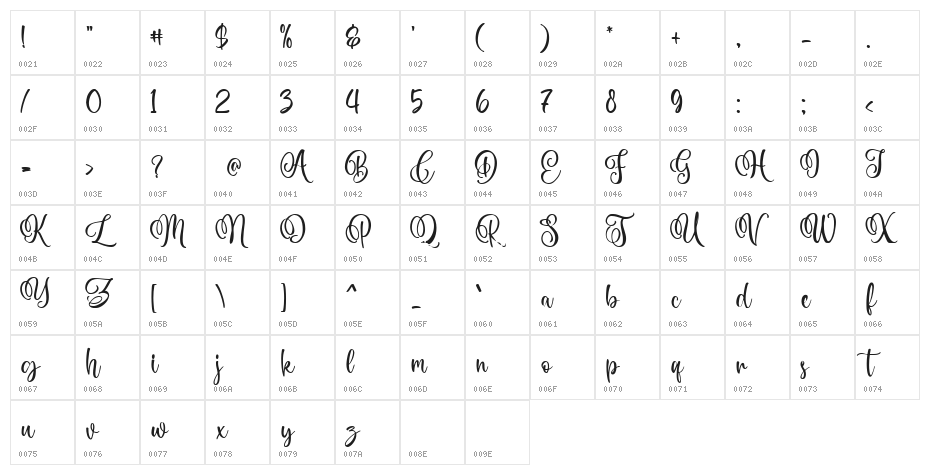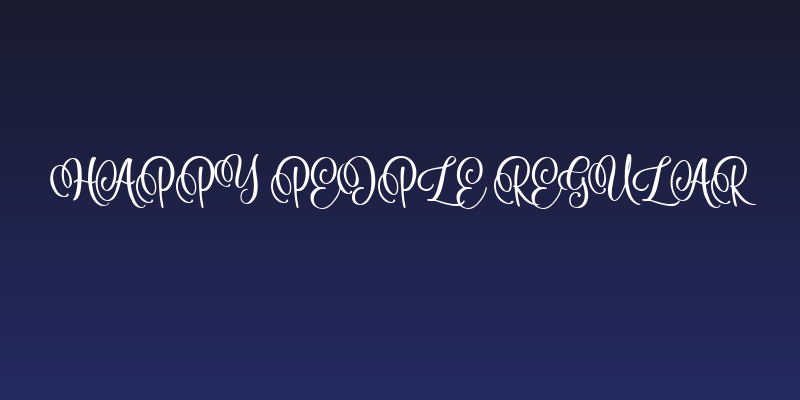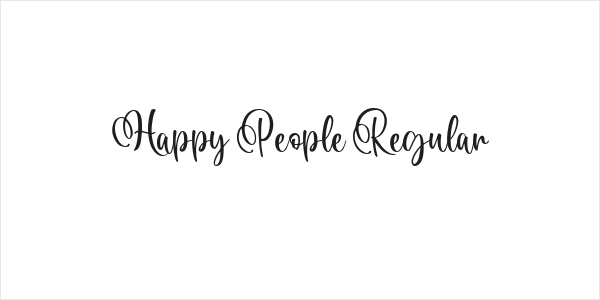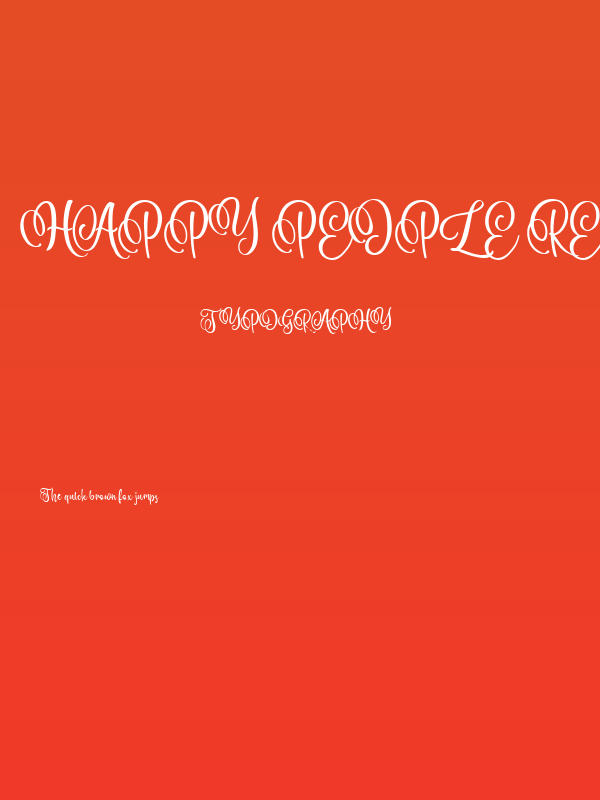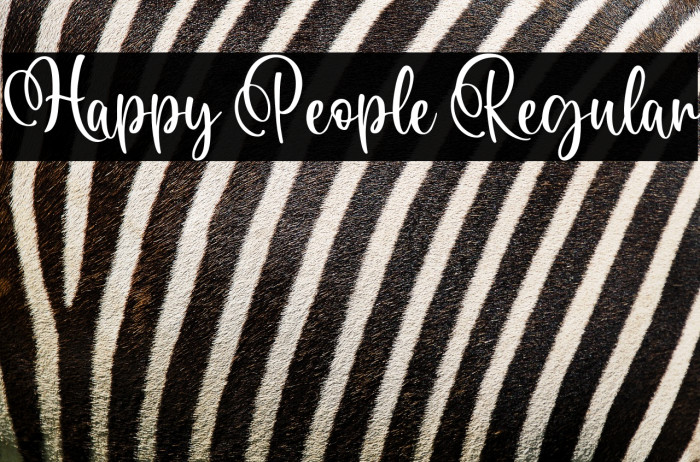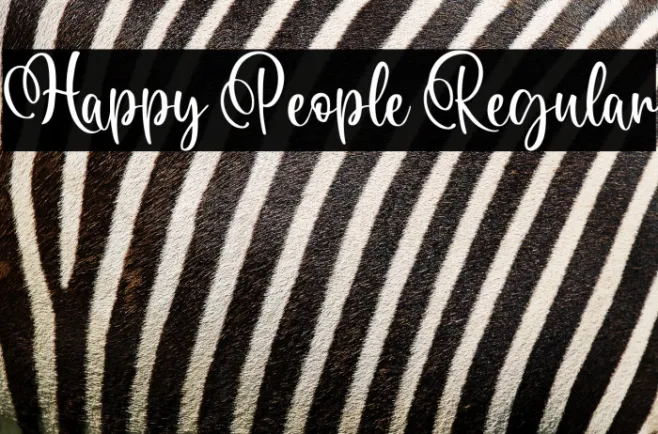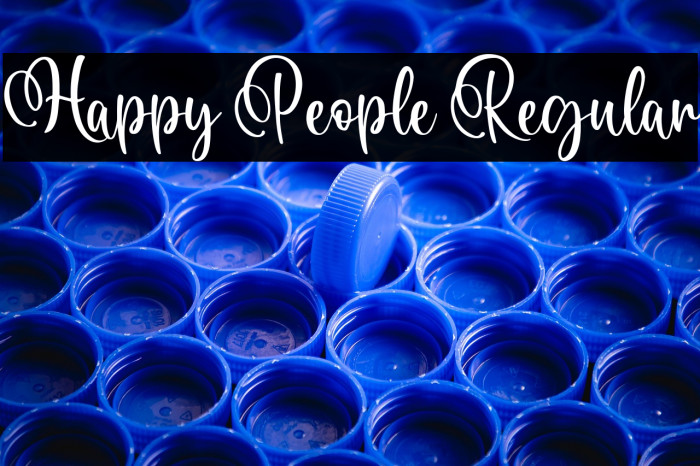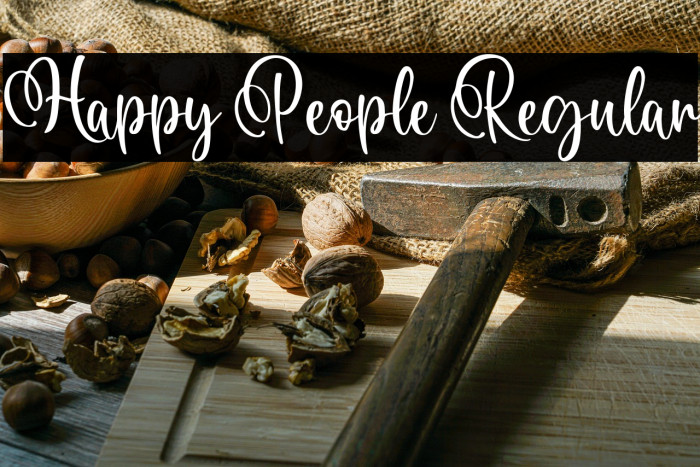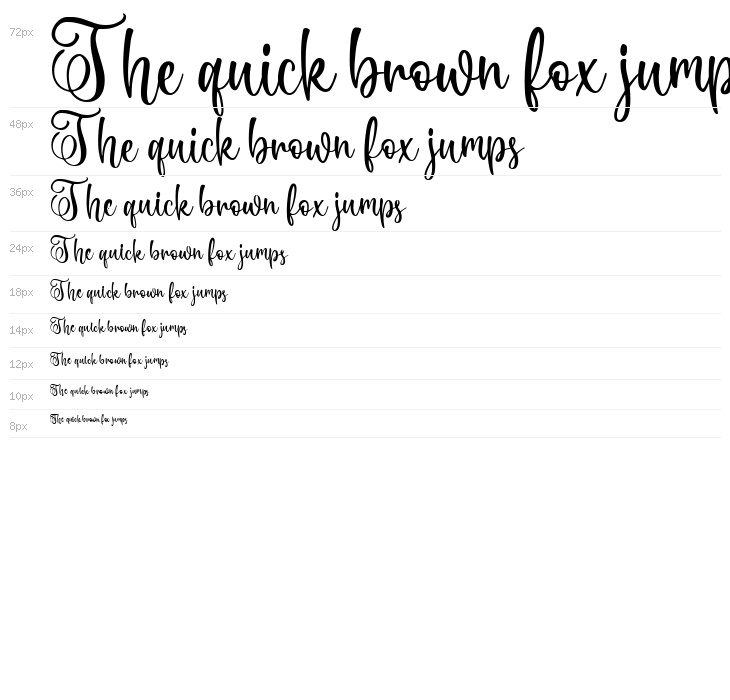
Happy People Regular Font
Happy People Regular Description
This font features a playful and whimsical script style with a flowing, cursive design. The uppercase letters are characterized by their elaborate loops and swirls, giving them a decorative and ornate appearance. The lowercase letters maintain a consistent, fluid motion, enhancing the font's elegant and lively personality. Numbers and special characters are crafted with the same attention to detail, ensuring a cohesive look across all elements. The overall aesthetic is both charming and sophisticated, making it ideal for projects that require a touch of creativity and flair.
| Proposed Projects | Ideal for wedding invitations, greeting cards, branding, and creative projects that require a personal touch. |